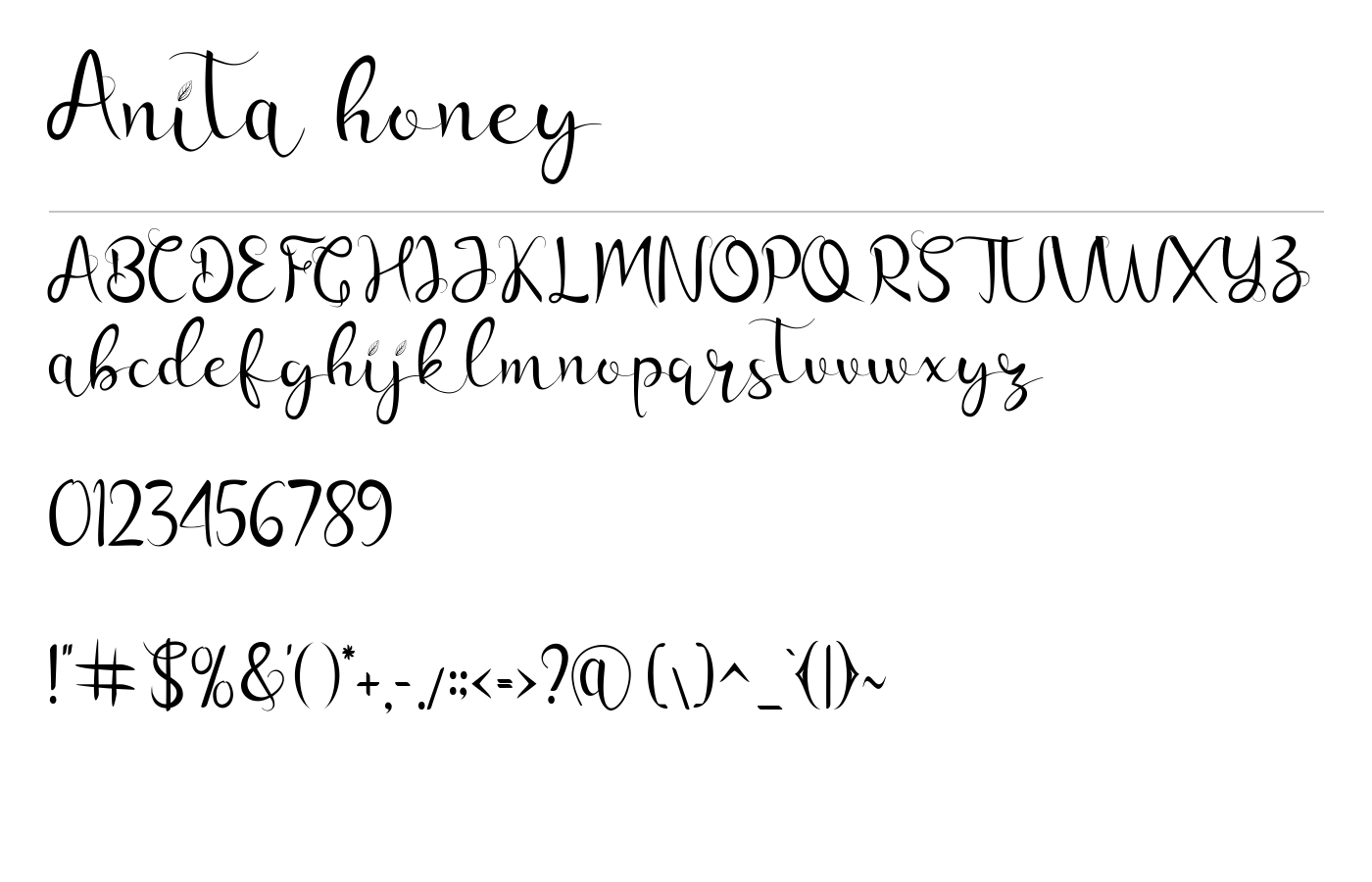
Anita Honey is a graceful script font with a delicate, hand-drawn feel, featuring elegant swashes and playful flourishes that add a charming, whimsical touch. Its light weight, tall x-height, and flowing letterforms make it perfect for feminine branding, invitations, and creative projects that seek a stylish yet approachable personality. This font works beautifully in logos, greeting cards, and headlines where a soft, artistic vibe is desired.
Anita honey Font
About Anita honey Font
| Font family | Anita honey Font |